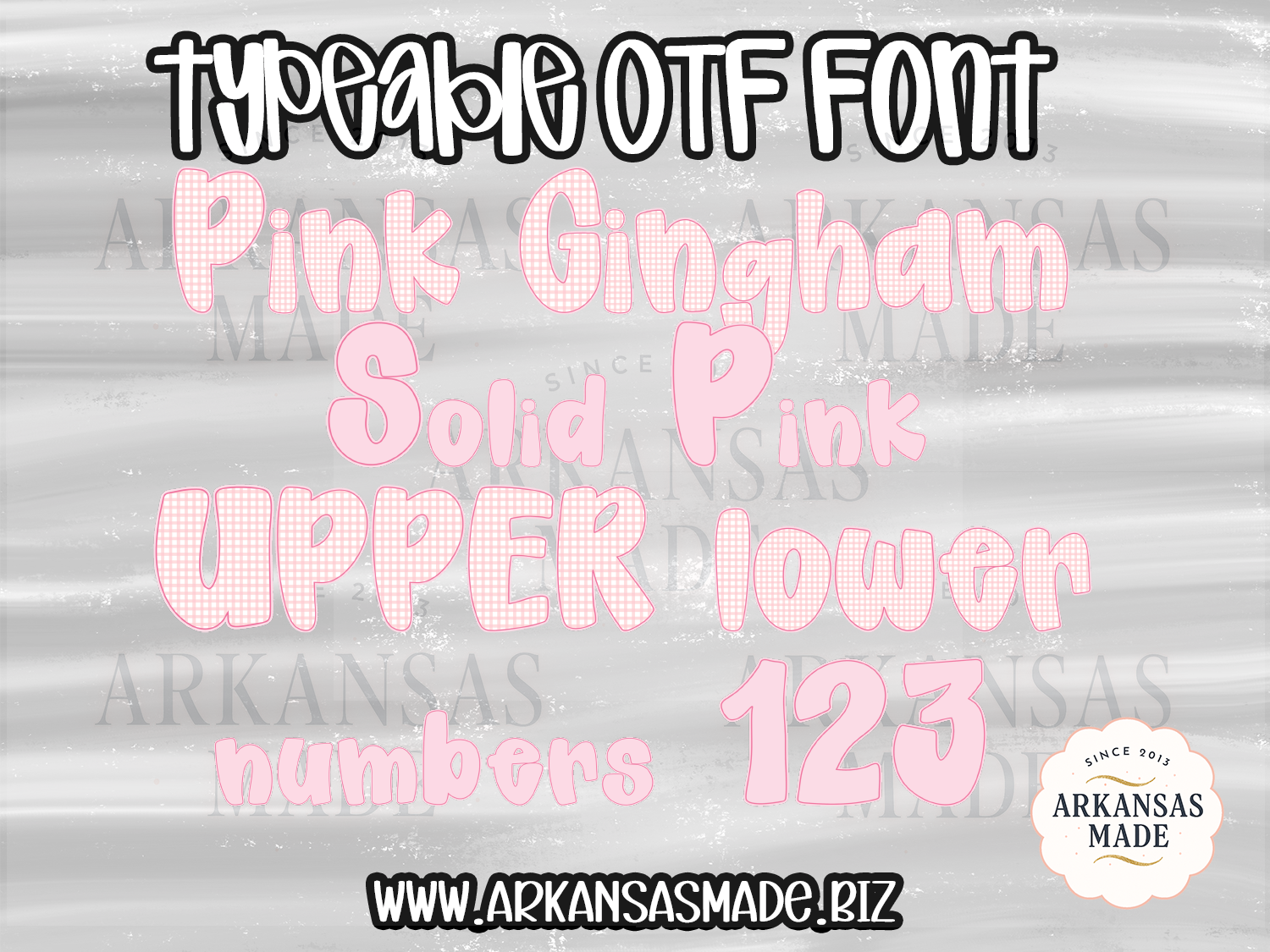
Pink Gingham Preppy Font, Solid Pink Preppy Font ✦ Typeable Alpha Set – OTF Font File ✦
This is a typeable alphabet font delivered as an OTF file, perfect for adding personality to your designs without hand-placing every letter like it’s 2009.